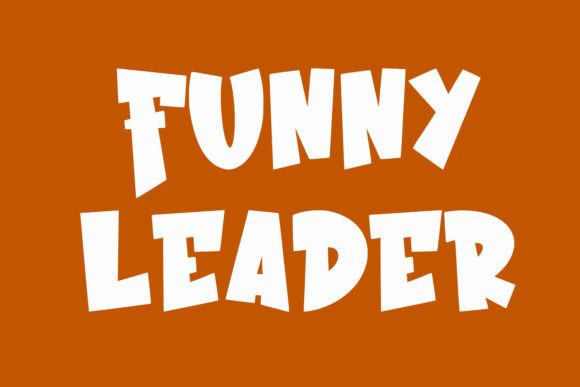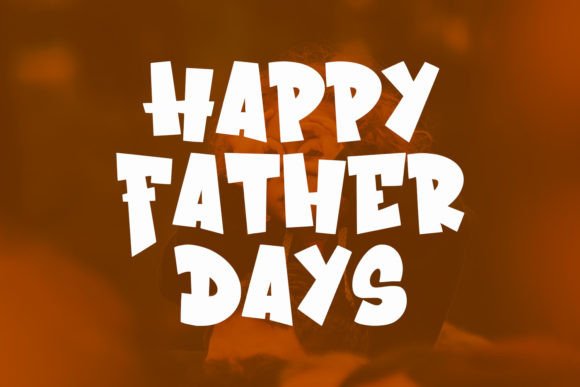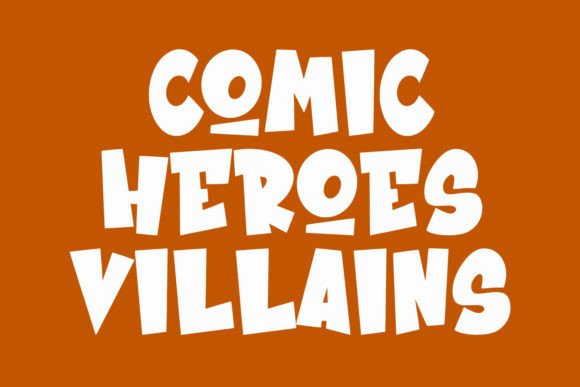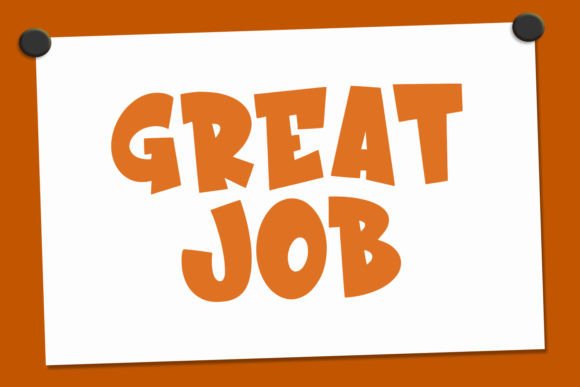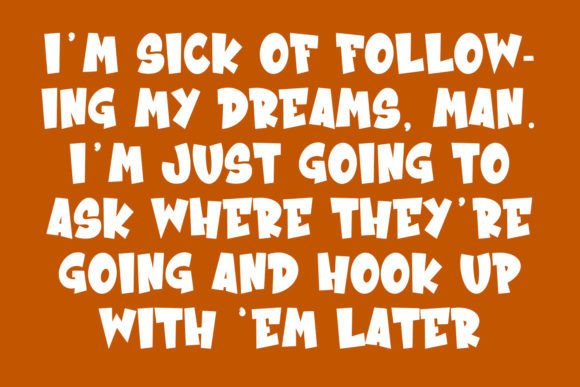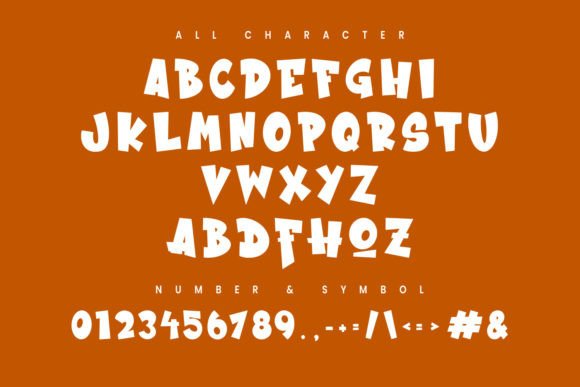
Introducing Boonzy Font: The Ultimate Comic Display Font for Creative Projects
Are you a designer or crafter looking for a unique and creative font to elevate your projects? Look no further than Boonzy Font, a comic display font that is sure to capture attention and add a touch of fun to your designs. With its heavy stroke, fun character, and ligatures, Boonzy Font is the perfect choice for a wide range of creative projects.
What Makes Boonzy Font Special?
Boonzy Font is a one-of-a-kind comic display font that offers a range of features that set it apart from other fonts. Some of its key characteristics include:
- Heavy Stroke: Boonzy Font features a bold and heavy stroke that gives it a playful and attention-grabbing feel.
- Fun Character: The font has a fun and quirky character that is perfect for designs that require a lighthearted and humorous touch.
- Ligatures: Boonzy Font includes ligatures, which add an extra layer of creativity and sophistication to your designs.
Multilingual Support
One of the standout features of Boonzy Font is its multilingual support. With the ability to support over 100 languages, you can use Boonzy Font to create designs that cater to a global audience. Whether you’re working on a project that requires English, Spanish, French, or any other language, Boonzy Font has got you covered.
Perfect for a Range of Design Projects
Boonzy Font is a versatile font that can be used for a wide range of design projects, including:
- Logo Design: The font’s bold and playful character makes it perfect for logo design, where you want to create a lasting impression.
- Social Media: Boonzy Font is ideal for social media graphics, where you want to grab attention and add a touch of personality to your posts.
- Movie Titles: The font’s cinematic feel makes it perfect for movie titles, where you want to create a dramatic and eye-catching effect.
- Books Titles: Boonzy Font is also great for book titles, where you want to add a touch of whimsy and creativity to your design.
Pairing Boonzy Font with Other Fonts
Boonzy Font is a versatile font that can be paired with a range of other fonts to create a unique and visually appealing design. Some popular font pairing options include:
- Script Fonts: Pair Boonzy Font with a script font for a elegant and sophisticated look.
- Serif Fonts: Combine Boonzy Font with a serif font for a classic and timeless feel.
Tips for Using Boonzy Font
Here are some tips for getting the most out of Boonzy Font:
- Use it as a Display Font: Boonzy Font is perfect for display purposes, such as headings and titles.
- Experiment with Colors: The font’s bold and playful character makes it perfect for experimenting with bright and bold colors.
- Add Texture and Patterns: Add texture and patterns to your design to give it an extra layer of depth and interest.
Boonzy Font is a unique and creative comic display font that is perfect for designers and crafters looking to add a touch of fun and personality to their projects. With its heavy stroke, fun character, and ligatures, Boonzy Font is sure to capture attention and elevate your designs. Its multilingual support and versatility make it a great choice for a wide range of design projects, from logo design to social media graphics. So why not give Boonzy Font a try and see how it can take your designs to the next level?